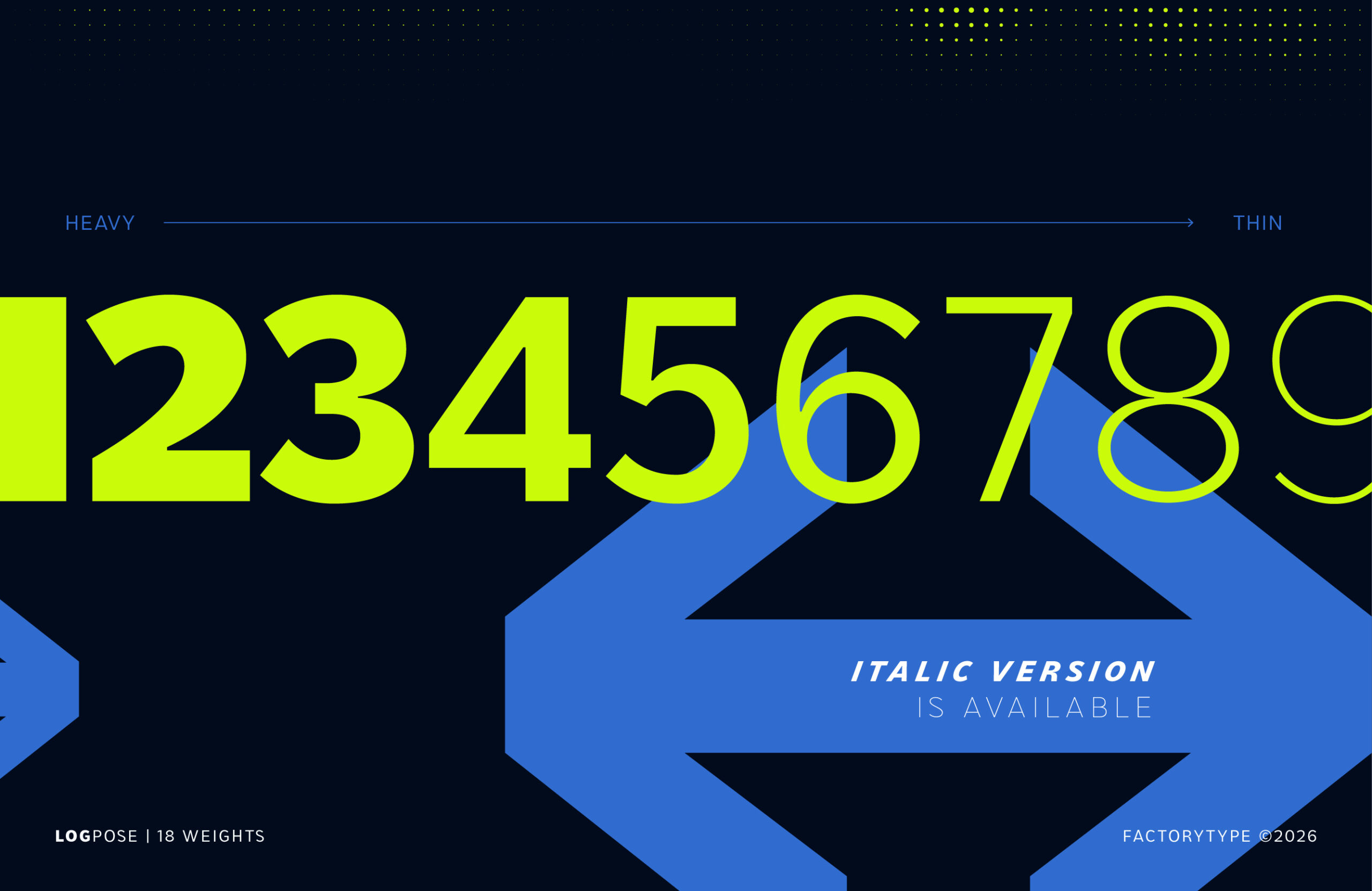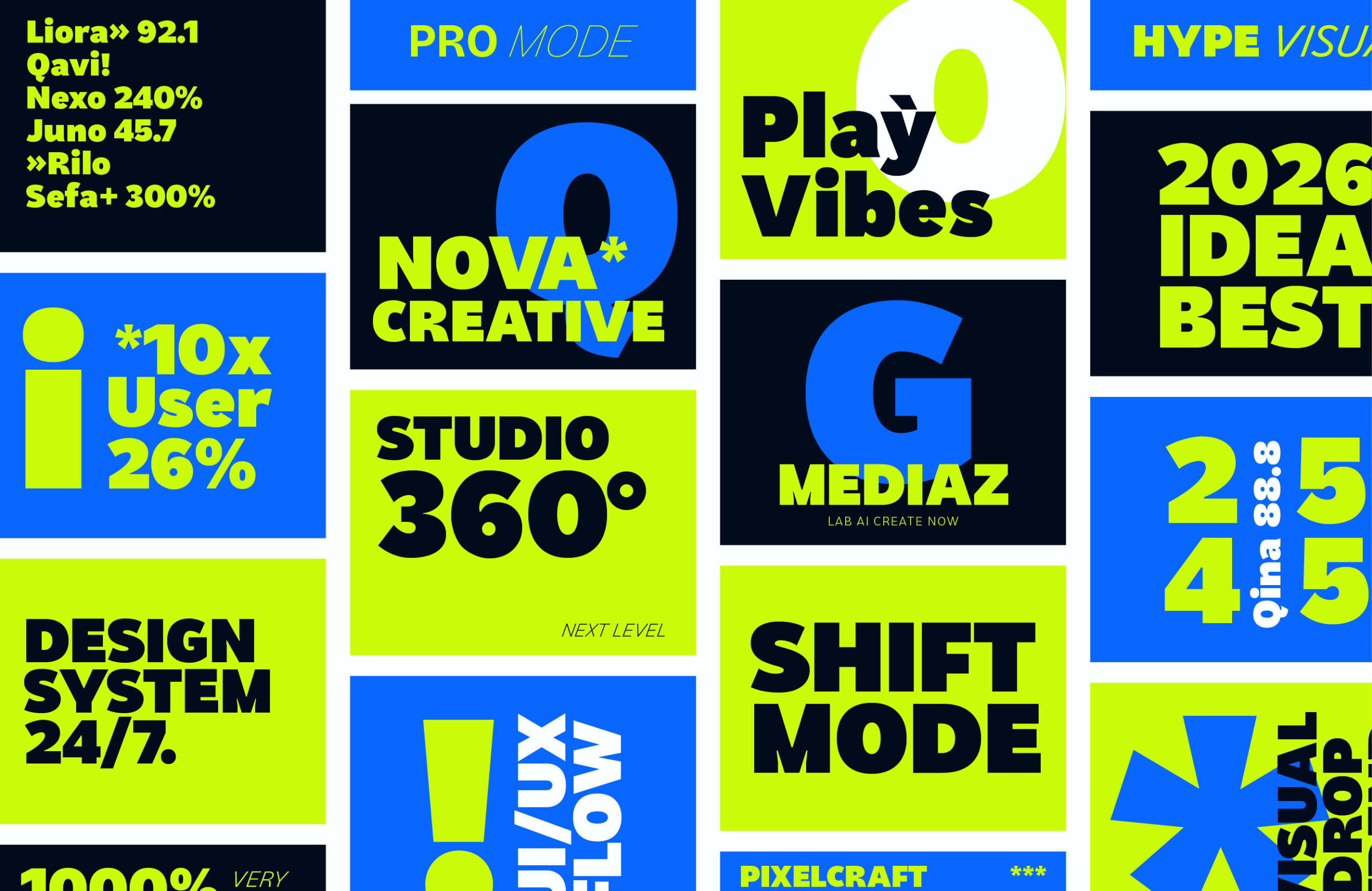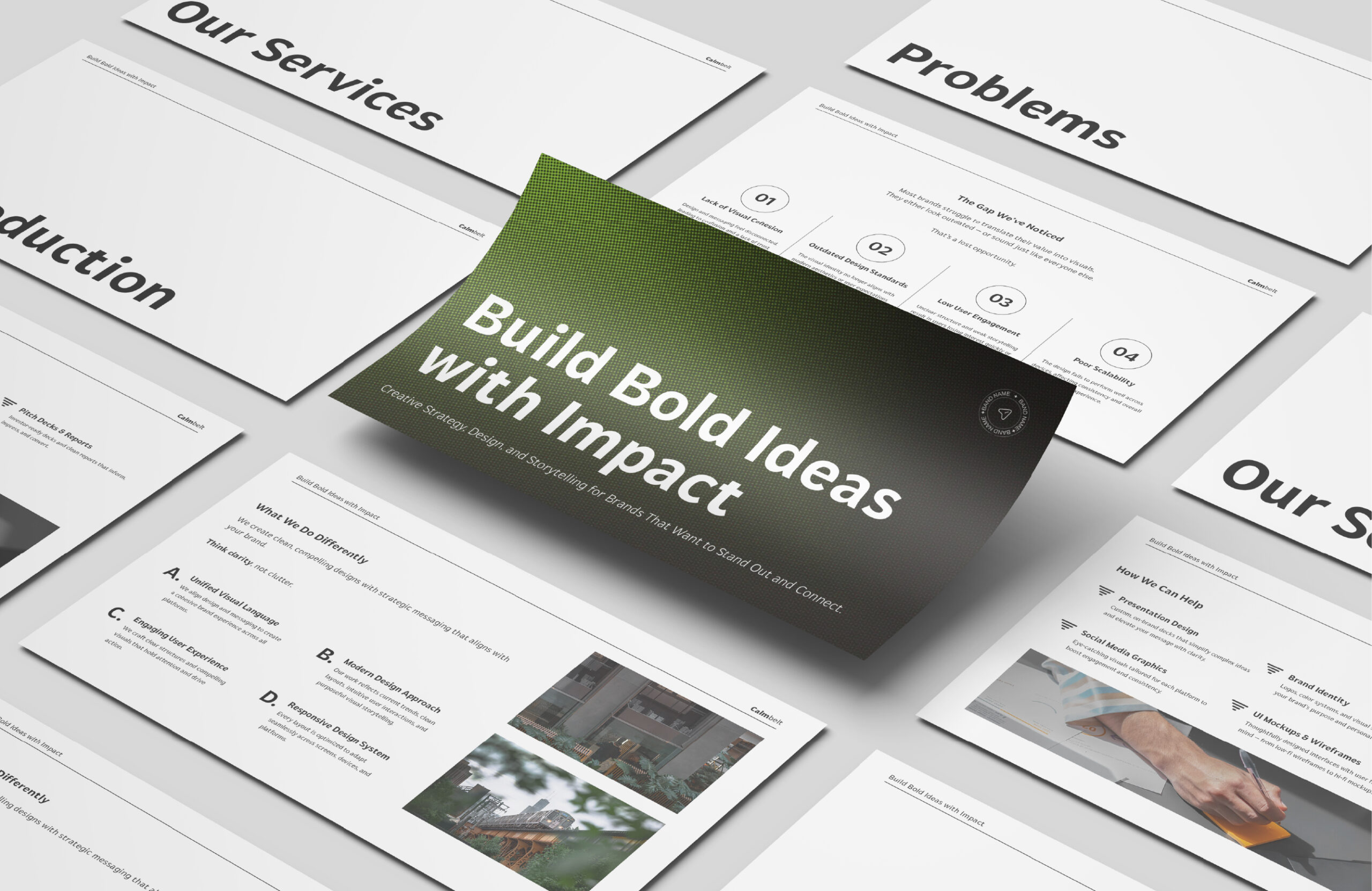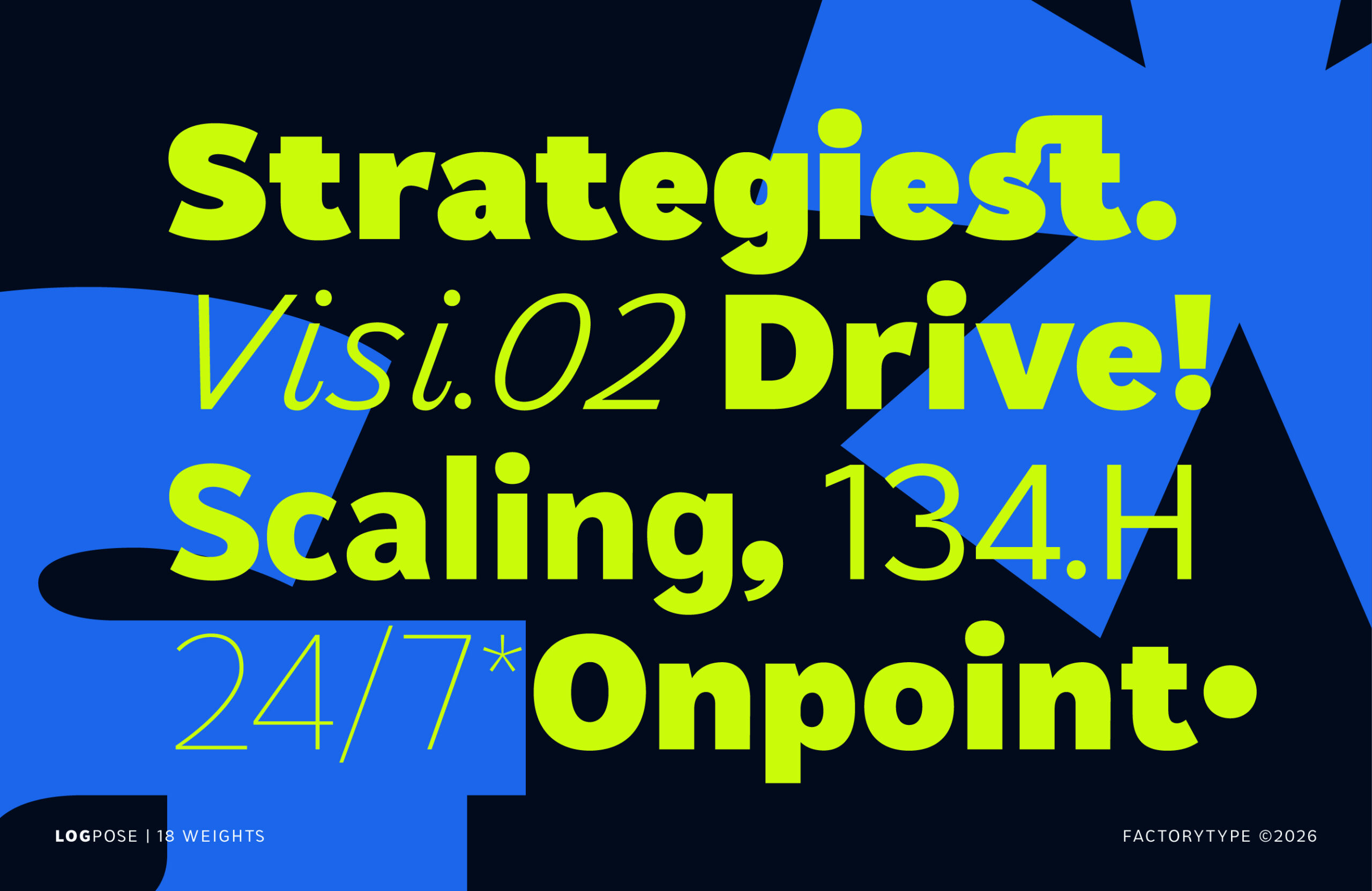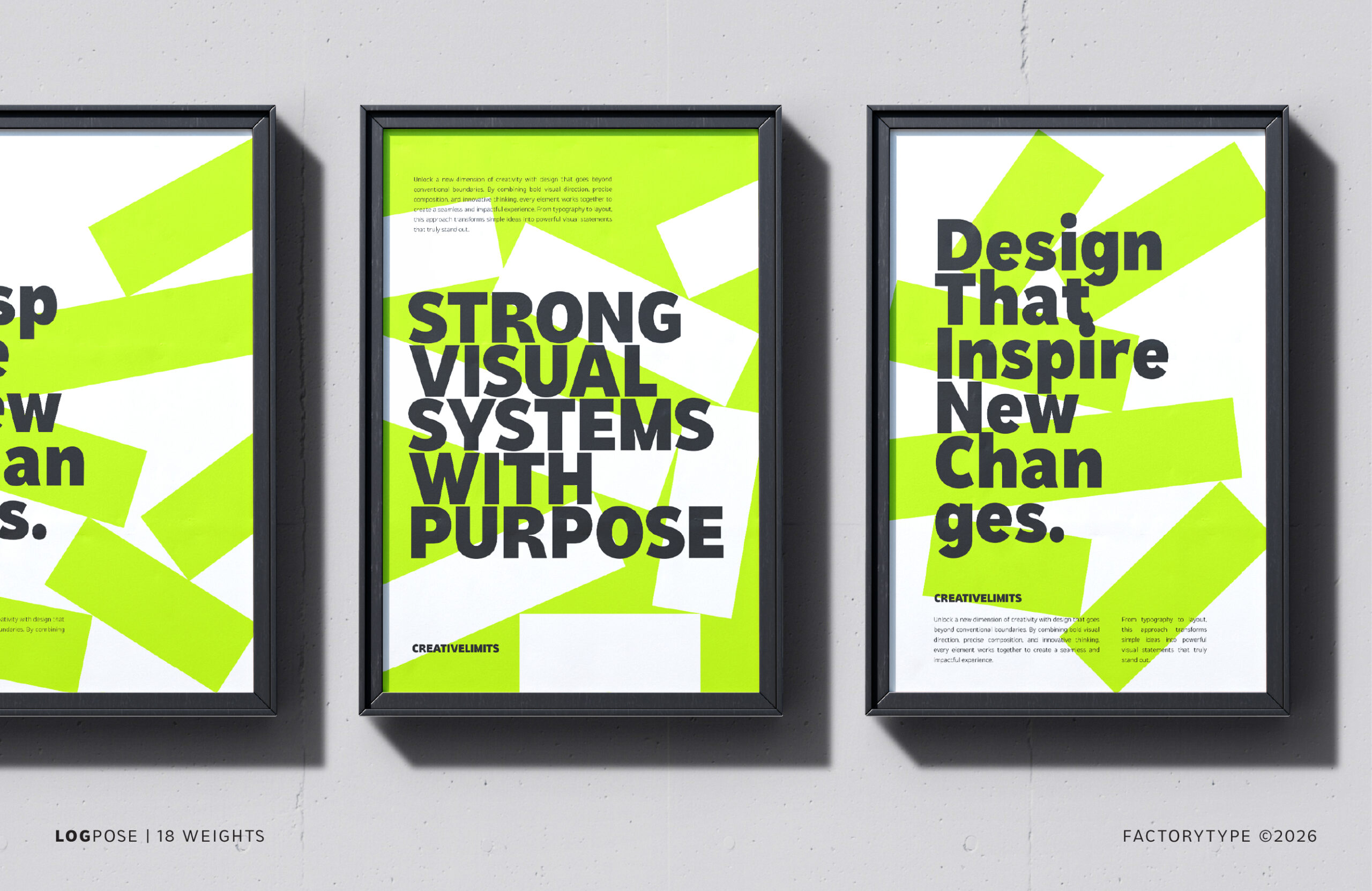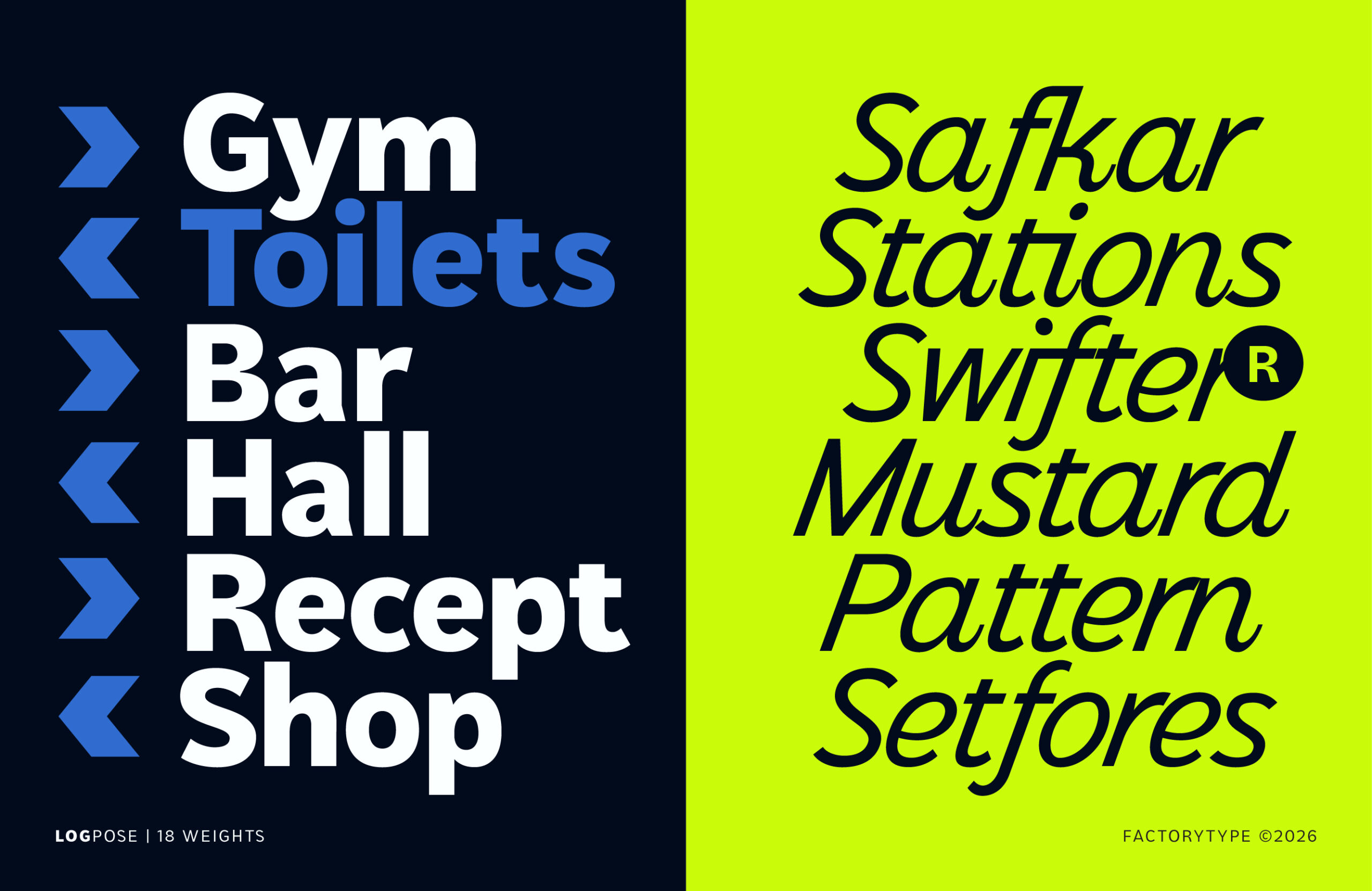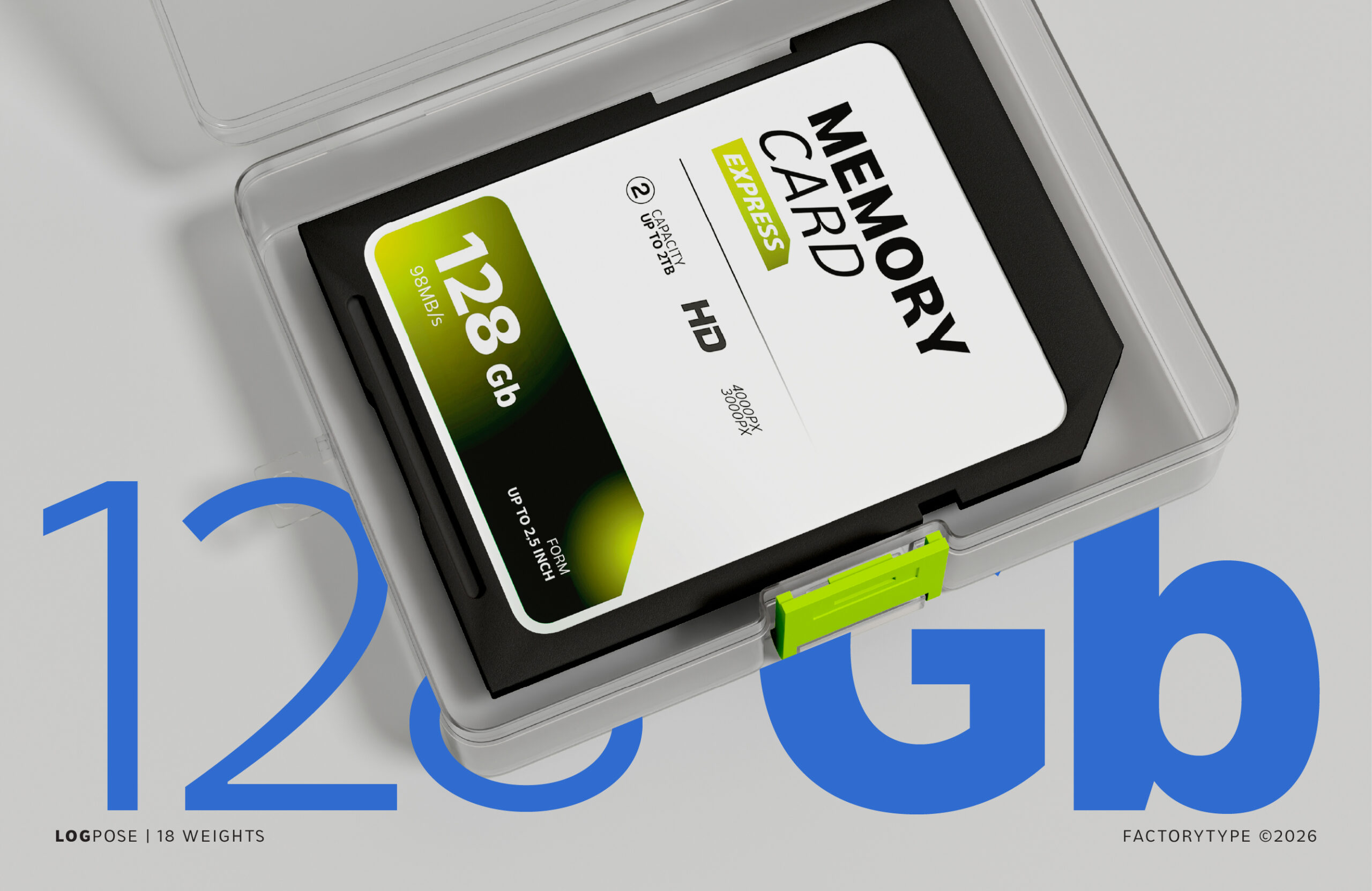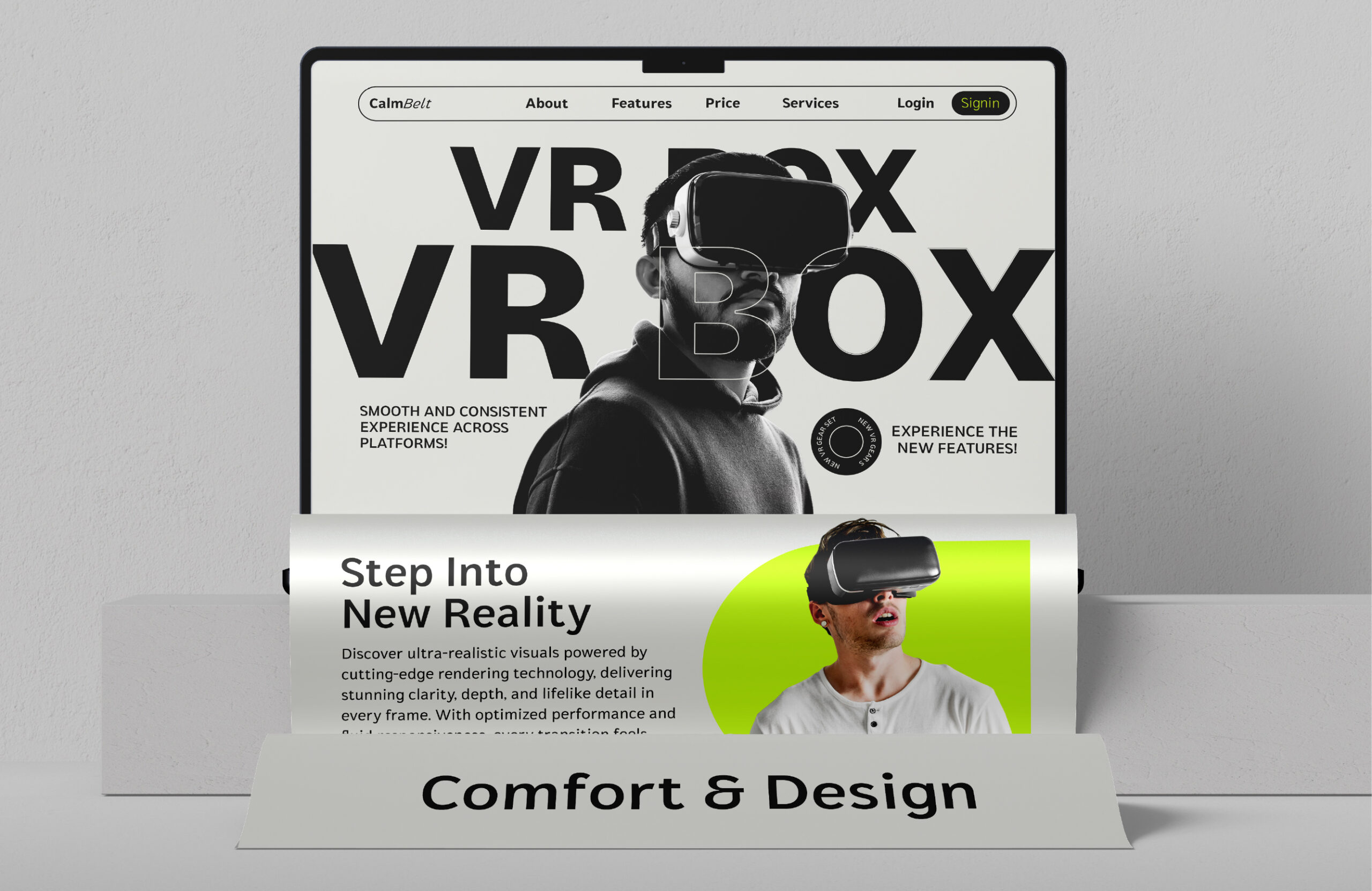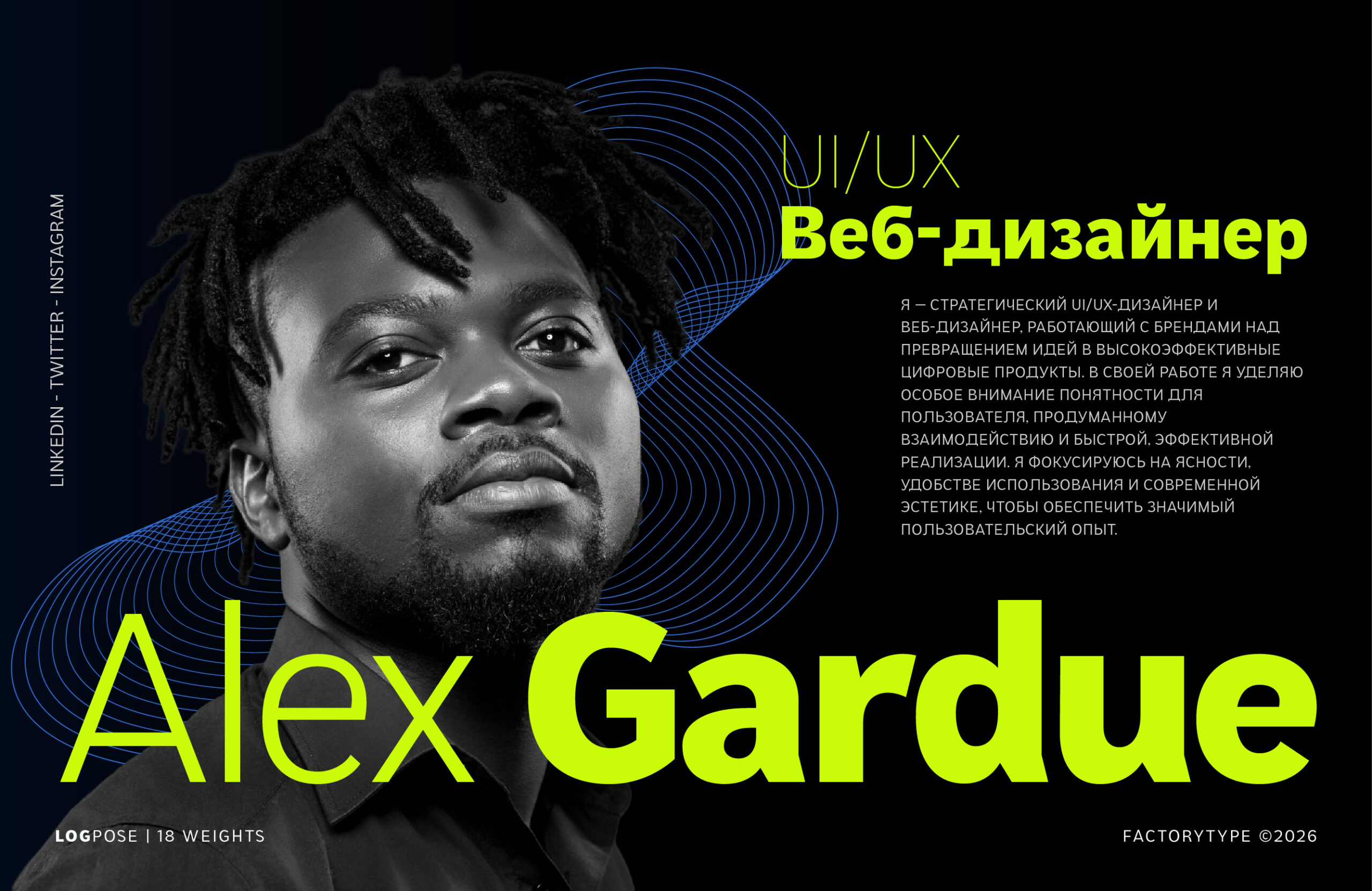
LogPose: A Thoughtful Geometric Sans for Clear Communication
Meet LogPose, a clean and versatile geometric sans serif designed to help you navigate modern professional systems with ease. Drawing inspiration from clean architectural minimalism and future-ready aesthetics, this typeface offers a calm yet confident tone that adapts to any visual environment.
We crafted this dependable 18-style library to serve as a sincere and consistent voice for your high-performance UI/UX design, corporate systems, and modern brand identities. We engineered it with minimal contrast and refined geometry to ensure that your message remains exceptionally readable, from the lightest airy stroke to the strongest bold statement.
FEATURES
- 18 Total Styles: 9 weights from an ethereal Thin to a commanding Heavy, across Regular and Italic styles.
- Aesthetic Focus: Refined geometric construction, engineered for flawless digital interaction and navigational clarity.
- Character Set: Over 300+ essential Latin glyphs and refined symbols for smart interactions.
- Ideal for: Web design, tech-focused branding, corporate decks, and minimalist packaging.
- Language: Reliable and comprehensive support for worldwide accessibility.